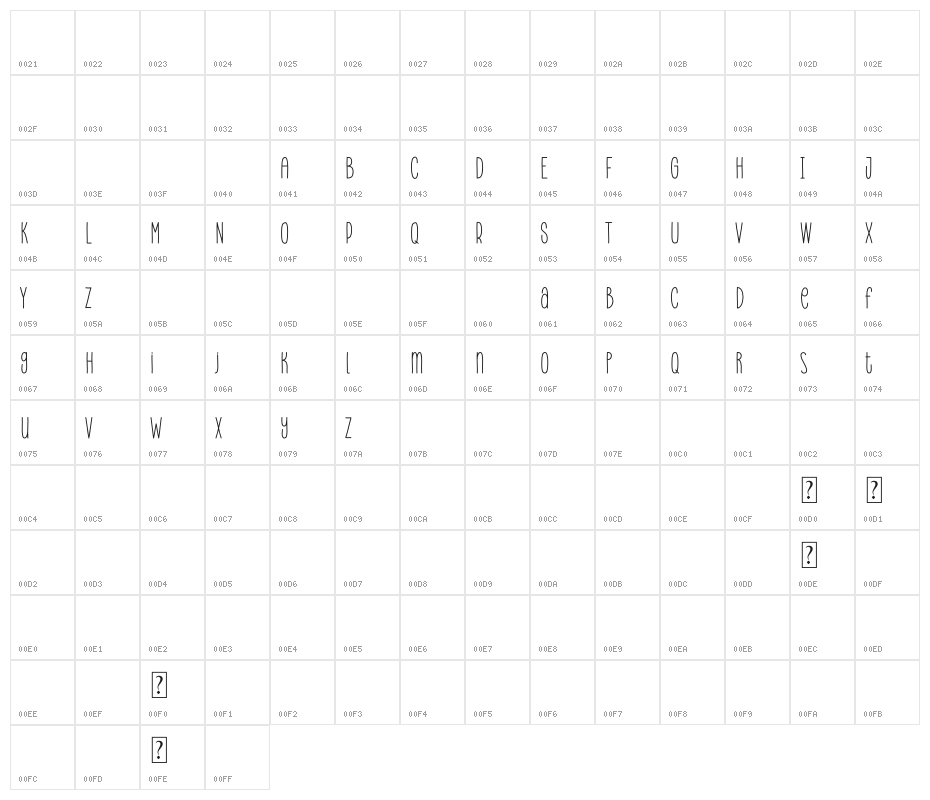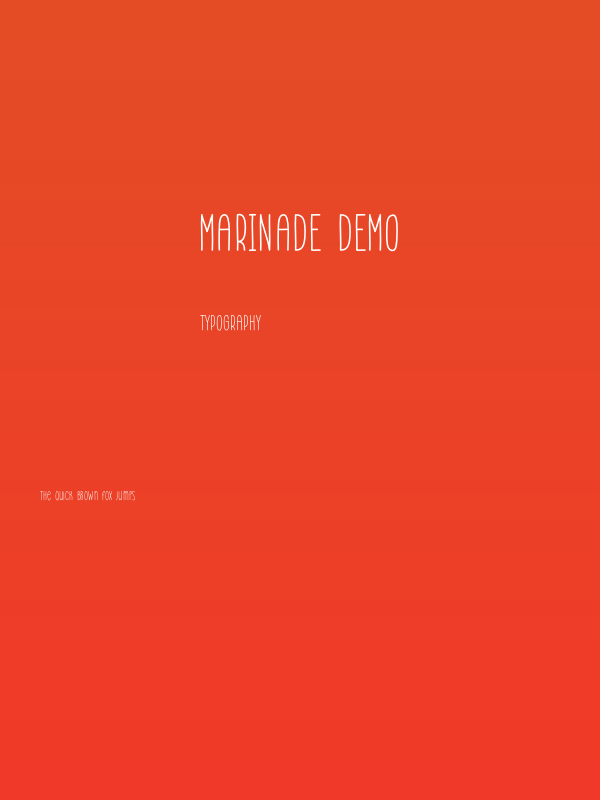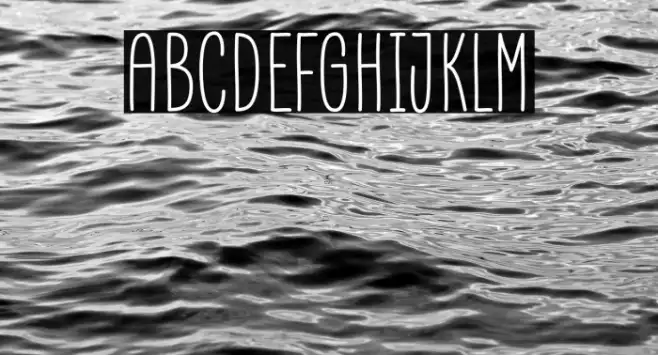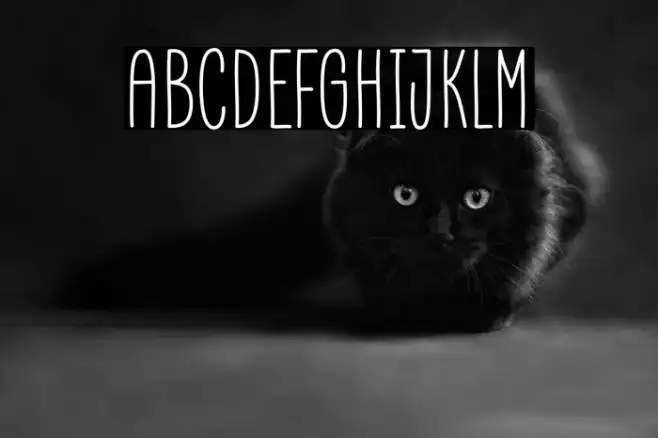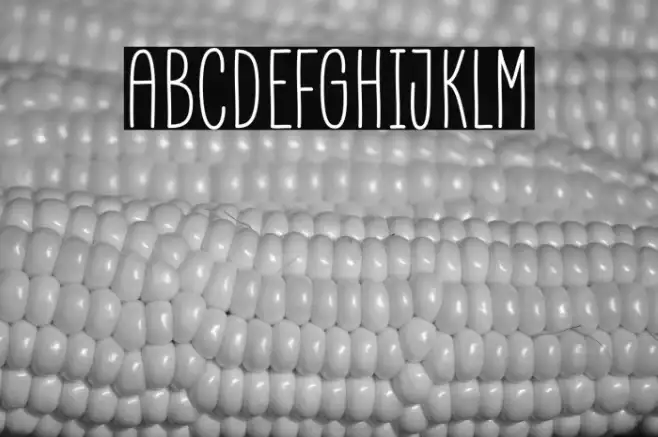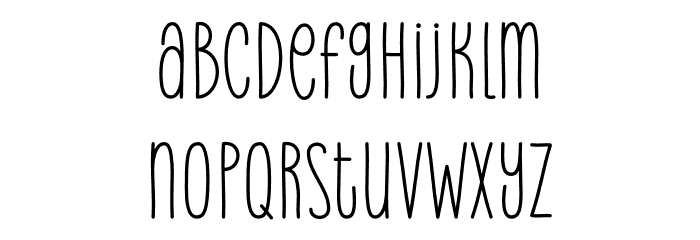
Marinade Demo Font
Marinade Demo Description
This font features a playful and whimsical design, characterized by its tall, narrow letterforms and rounded edges. The strokes are consistent in width, giving it a uniform appearance, while the slight curvature in the lines adds a touch of friendliness and approachability. The uppercase and lowercase letters maintain a cohesive style, with a slight variation in height that enhances its quirky charm. The font's simplicity and legibility make it suitable for a variety of creative projects, where a lighthearted and informal tone is desired.
| Proposed Projects | Ideal for children's books, greeting cards, playful branding, and casual invitations. |